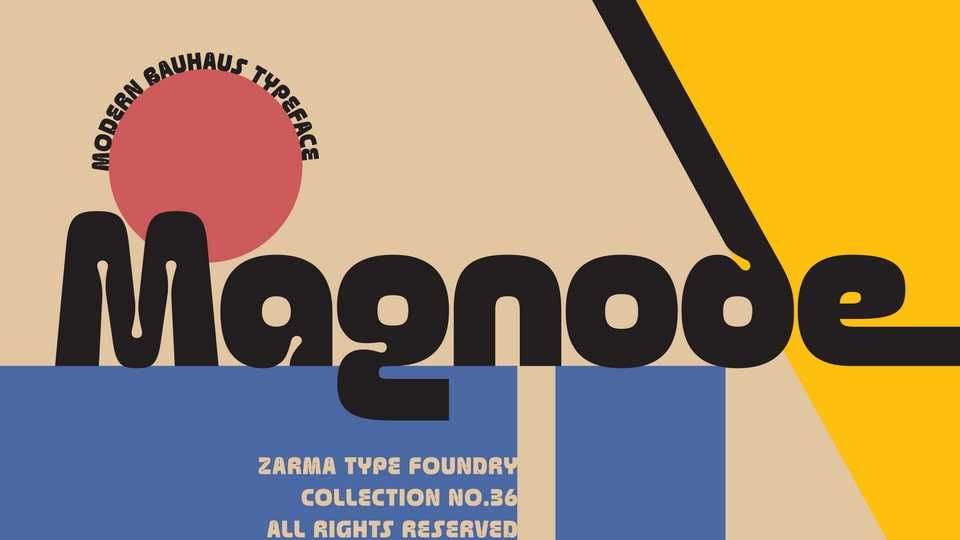
Download Magnode font, a sans serif typeface inspired by classic Bauhaus typefaces like Avant-Garde and Art Deco. While drawing from these timeless influences, Magnode incorporates unique experimental design elements.
Designer: Zarma Type Foundry